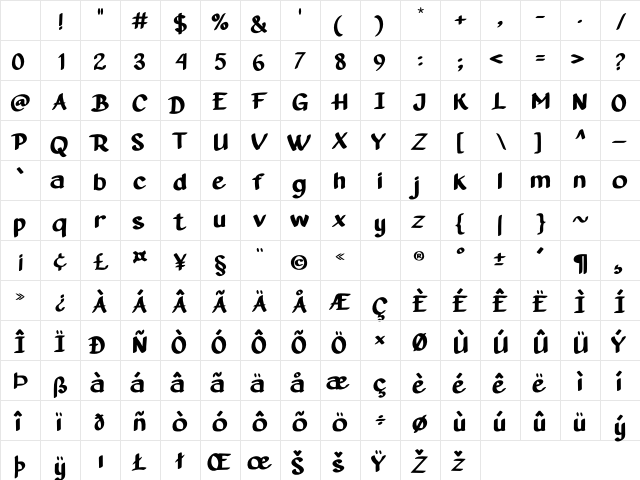
Complete SWEET MOUTH Regular glyph index. Displaying only characters natively supported by SWEET MOUTH Regular font.
SWEET MOUTH is a composed and adaptable typeface that performs quietly and consistently across a wide range of design contexts.
Who designed the SWEET MOUTH Regular font?